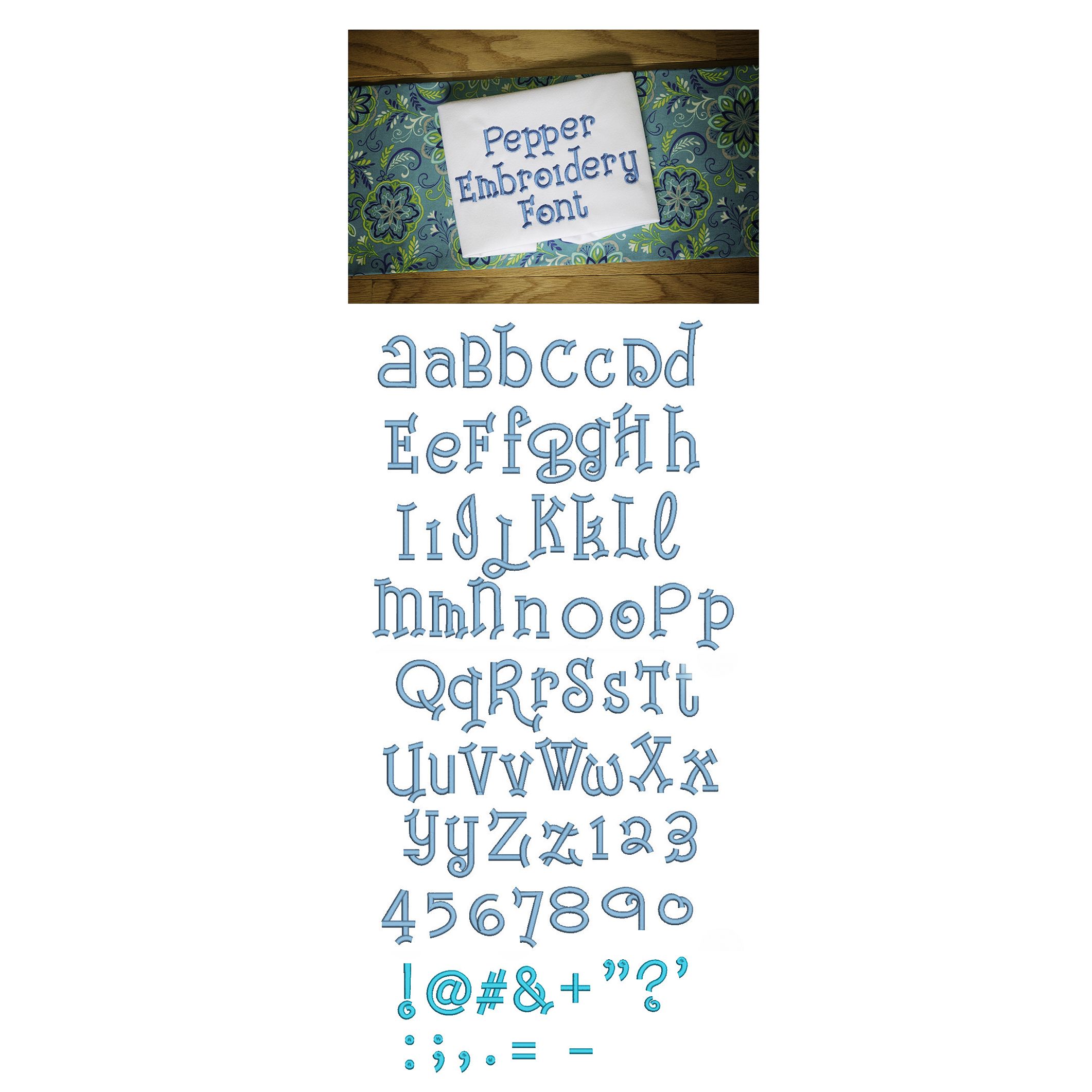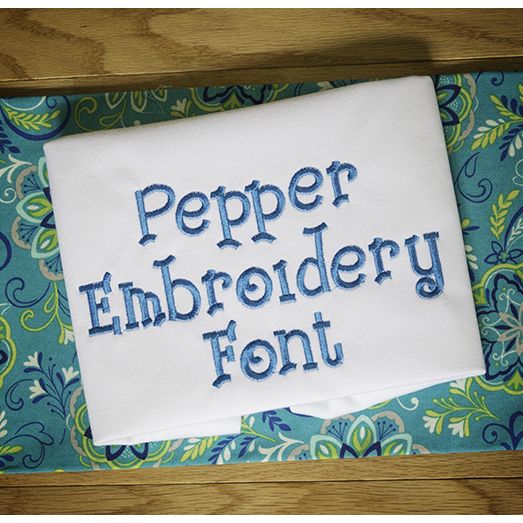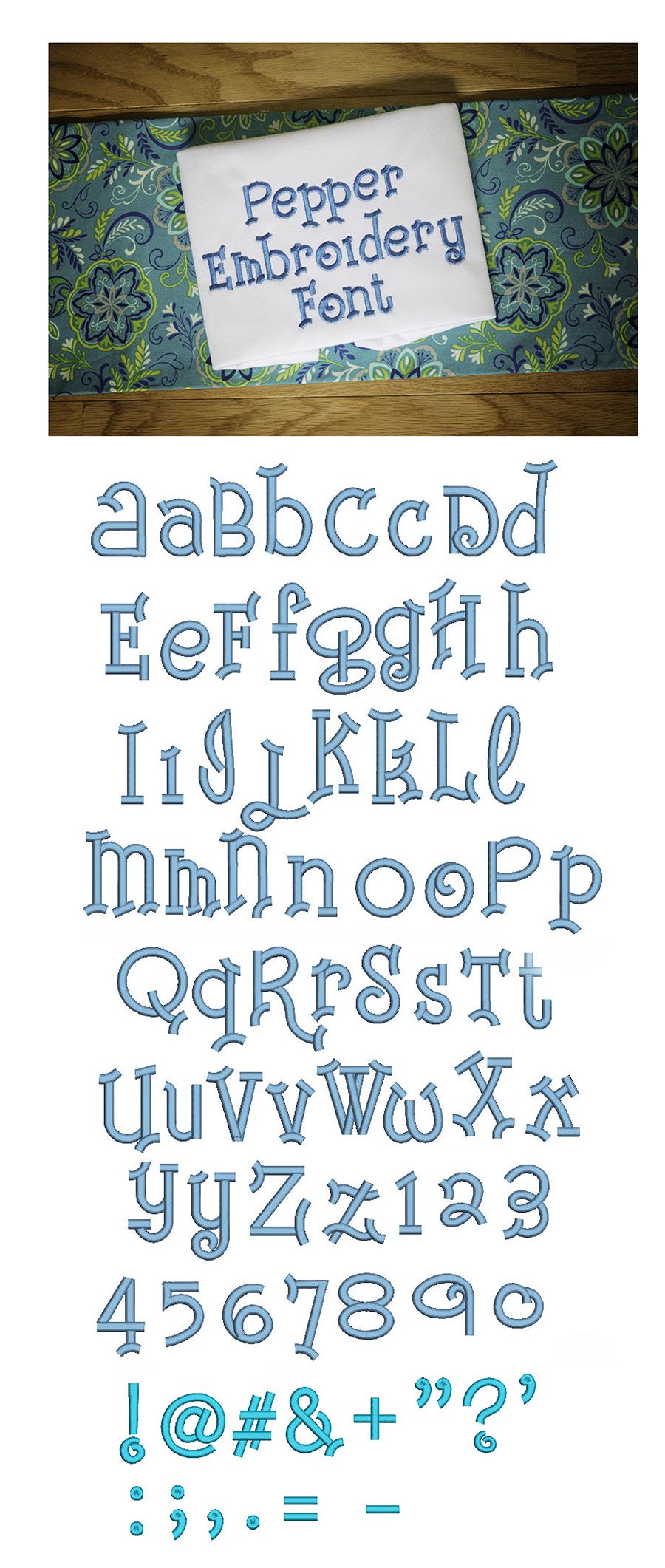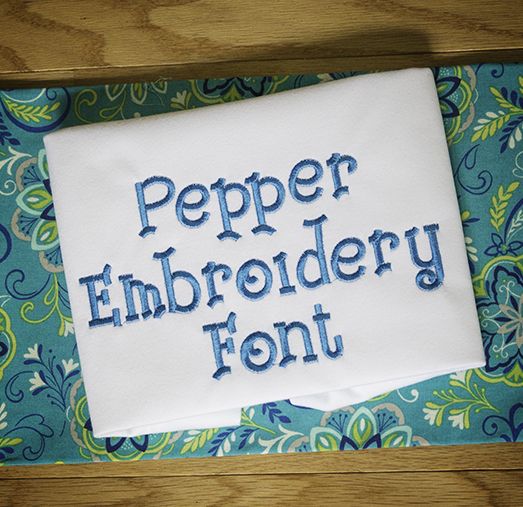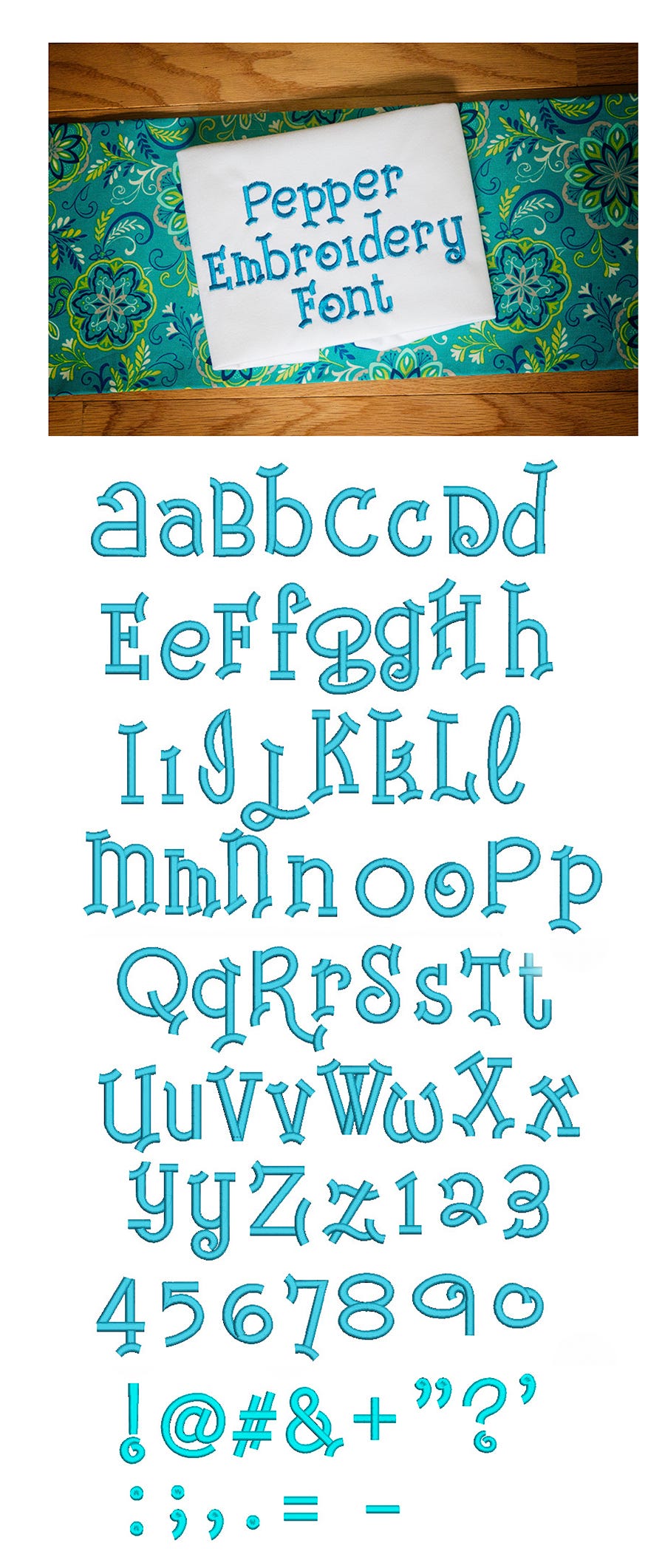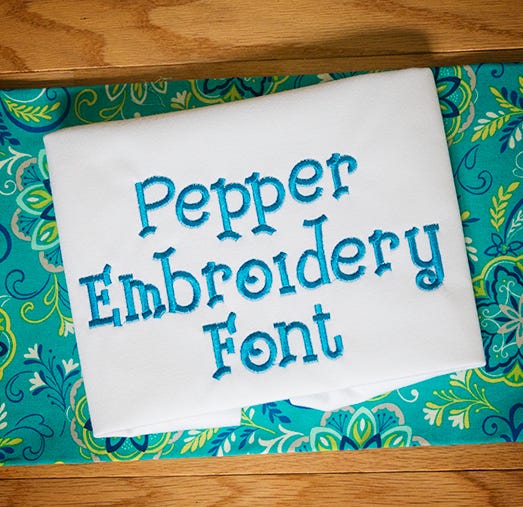
Pepper Satin Stitch Embroidery Font
An adorable, thick, chunky and whimsical font! All of our font alphabets are 100% manually digitized to bring you maximum stitch quality.